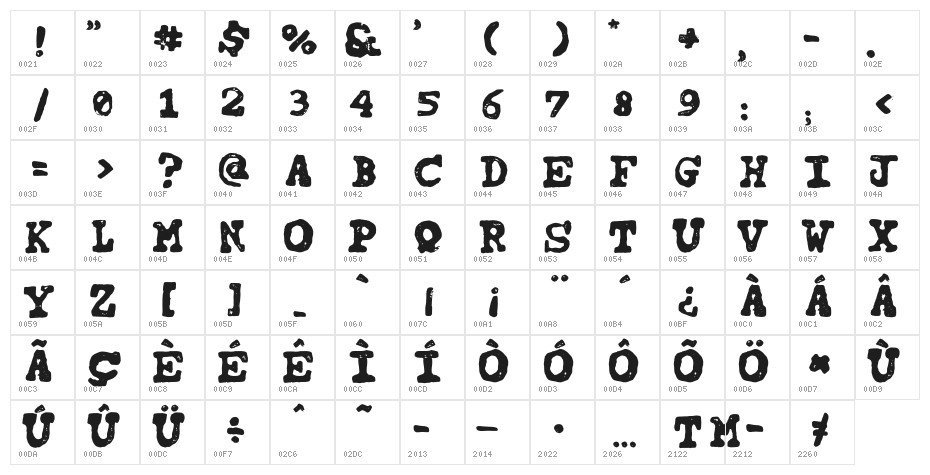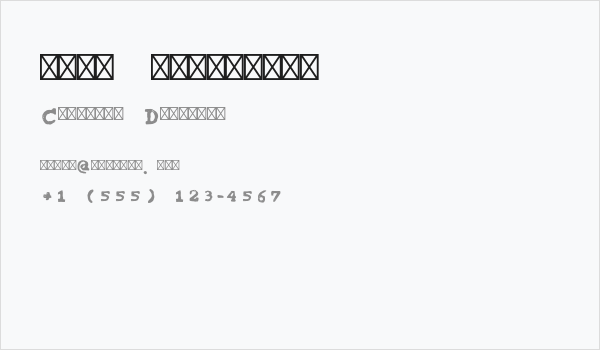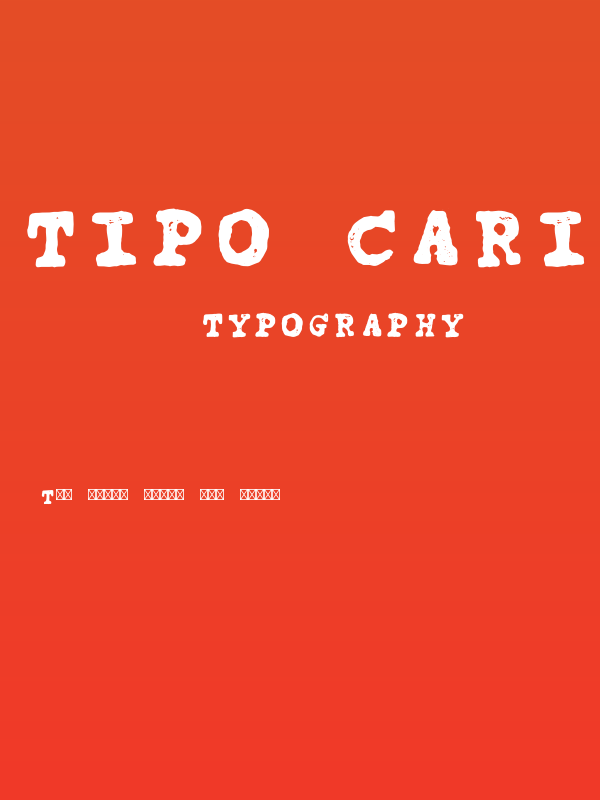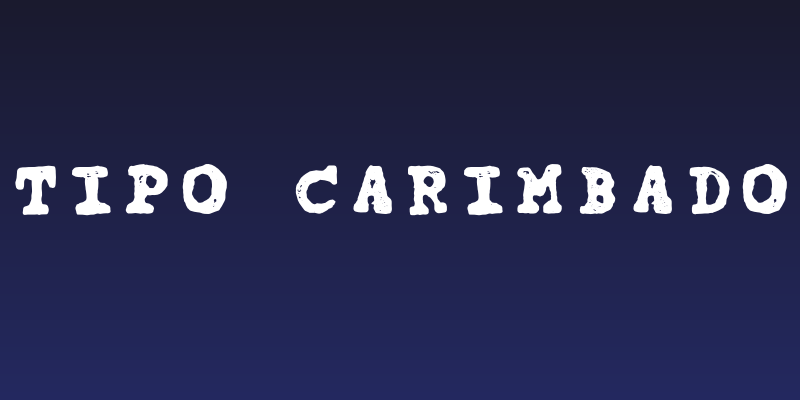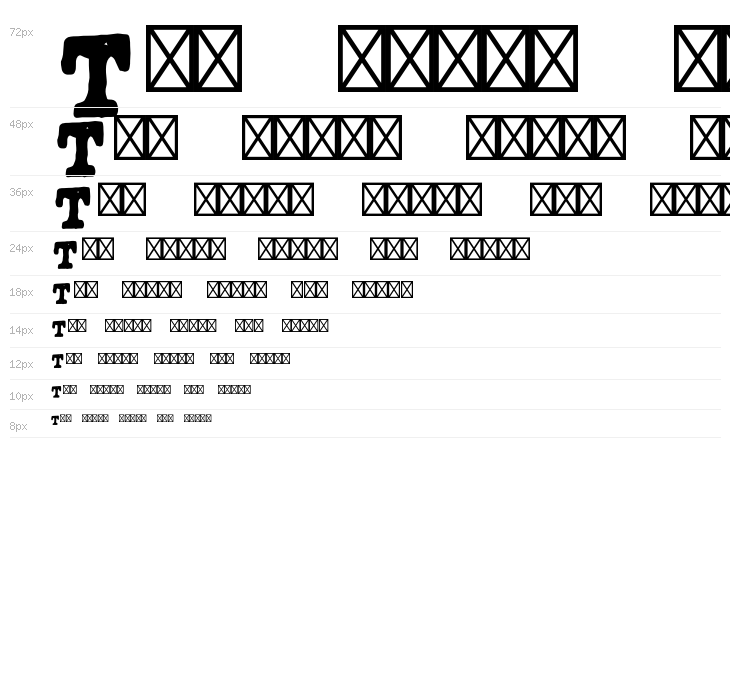
tipo carimbado Font
tipo carimbado Description
This font features a rugged, distressed style reminiscent of stamped or printed text. The characters have a bold, uneven texture, giving them a vintage, industrial feel. Each letter and number appears as if it has been worn over time, adding a sense of authenticity and character. The uppercase letters are bold and prominent, while the lowercase letters maintain the same distressed aesthetic. The numbers and special characters follow suit, providing a cohesive look across all glyphs. This font is ideal for projects that require a touch of nostalgia or a handcrafted appearance.
Overall StyleVintage
Use CaseLogos, Posters, Packaging
Proposed ProjectsIdeal for branding, posters, packaging, and any design requiring a vintage or handcrafted look.